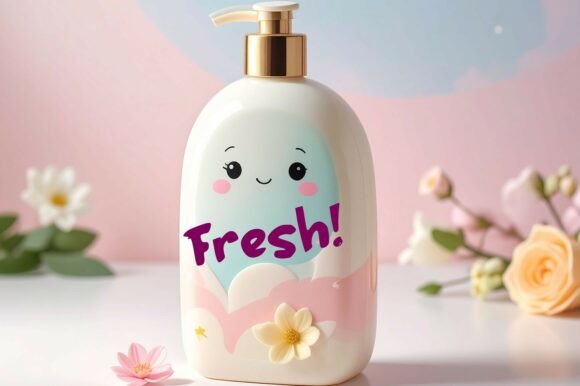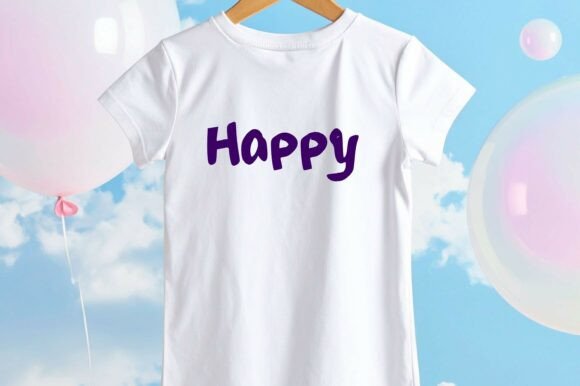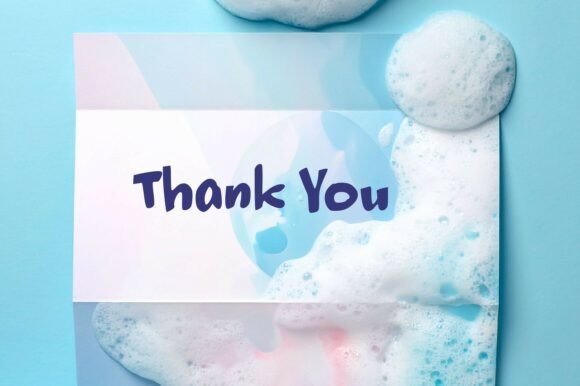
The Joyful World of Busa Font: A Designer’s Delight
I’ll never forget the time I was working on a children’s book project, and my client asked me to create a playful and engaging cover design. I spent hours scouring the internet for the perfect font, but nothing seemed quite right. That was until I stumbled upon Busa Font. Its bubbly and soft aesthetic immediately caught my eye, and I knew I had found the perfect fit. In this article, I’ll share my experience with Busa Font, its features, and how to make the most of it in your designs.
A Personal Review of Busa Font
What I Love About Busa Font
• ✨ Playful and modern design: Busa Font is perfect for projects that require a sense of joy and whimsy.
• ✅ Comprehensive character set: It includes a full set of uppercase and lowercase letters, numbers, and essential punctuation glyphs.
• 🎉 Versatile and adaptable: Busa Font is suitable for a wide range of design needs, from children’s product branding to social media graphics.
• 👍 Easy to read and approachable: The rounded edges and friendly appearance make it highly inviting and easy to read.
While Busa Font is an excellent choice for many projects, there are a few things to keep in mind:
• ⚠️ Limited use in formal contexts: Busa Font’s playful nature makes it less suitable for formal or professional projects.
• 🤔 Glyph limitations: While Busa Font includes a comprehensive character set, it may not have every special character or glyph you need.
The Story Behind Busa Font
Busa Font was designed with the intention of bringing joy and playfulness to the world of typography. Its creator, a talented type designer, aimed to craft a font that would be both fun and functional. Inspired by the whimsical world of children’s books and playful branding, Busa Font was born.
What is Busa Font best suited for? Busa Font is perfect for projects that require a playful and modern touch, such as children’s product branding, social media graphics, and engaging headlines.